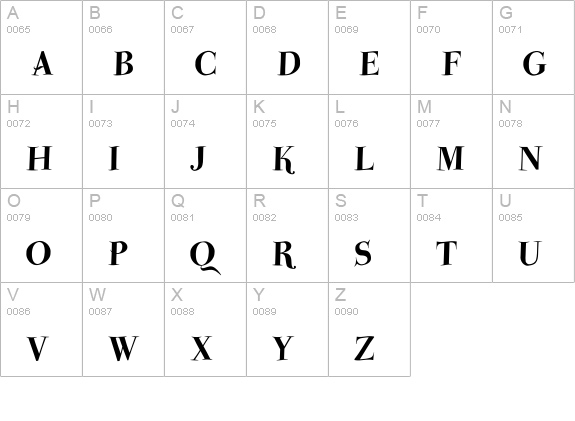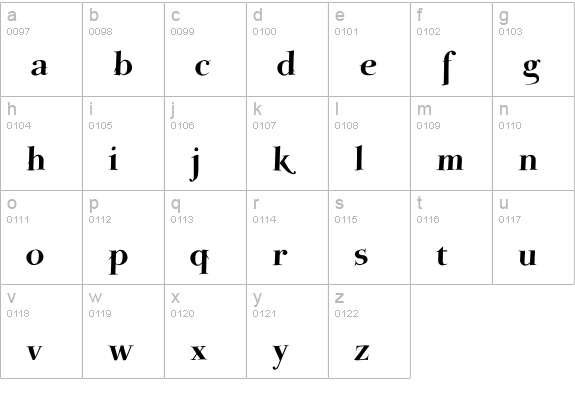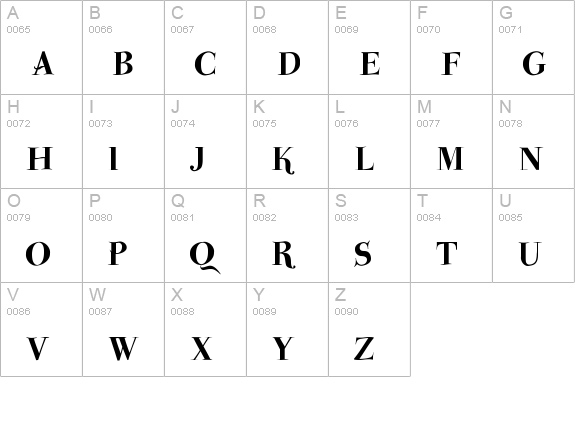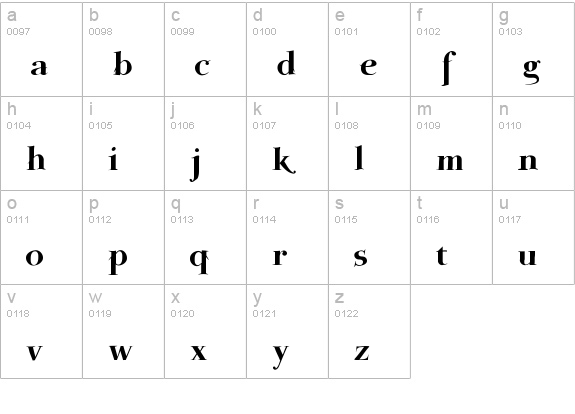
Introducing ParmaPetit-HeavySwinging font, a spectacular typeface that combines elegance with a touch of playfulness. This font is perfect for adding a bold and stylish element to your designs, making them stand out from the crowd. ParmaPetit-HeavySwinging is characterized by its strong and heavy strokes, exuding a sense of confidence and power. Its unique letterforms and distinct curves create a visually captivating display, making it ideal for headlines, logos, posters, and branding projects. Designed with meticulous attention to detail, ParmaPetit-HeavySwinging offers a wide range of glyphs and ligatures, allowing for endless creative possibilities. Whether you're designing for print or web, this font will add a touch of sophistication and sophistication to your work. The best part? ParmaPetit-HeavySwinging is available completely free to download at FontsMarket.com. Yes, you read that right – this remarkable font can be yours at no cost. Just head over to FontsMarket.com and grab your copy today. So, if you're looking for a font that effortlessly combines elegance, playfulness, and versatility, look no further than ParmaPetit-HeavySwinging. Download it for free at FontsMarket.com and unlock a world of design possibilities. Get ready to make a bold statement with ParmaPetit-HeavySwinging font!